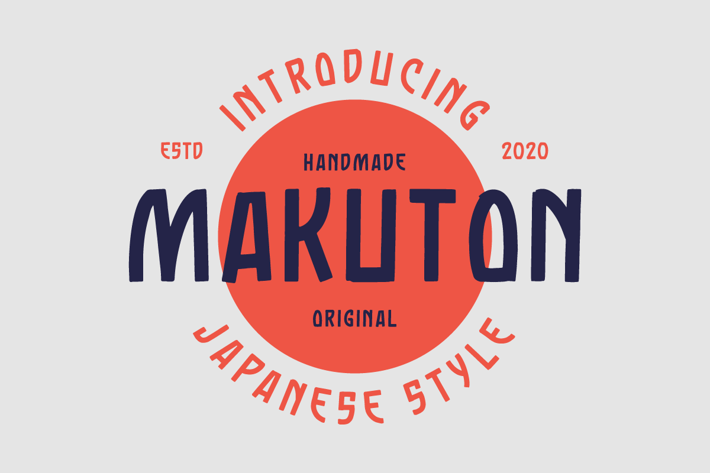
Makuton Japanese Vintage Typeface
Makuton is a vintage japanese typeface inspired by handmade lettering this, typeface is ready to use and suitable retro design like for Logotype, Label, Sign Painting, Badges, Poster and etc.